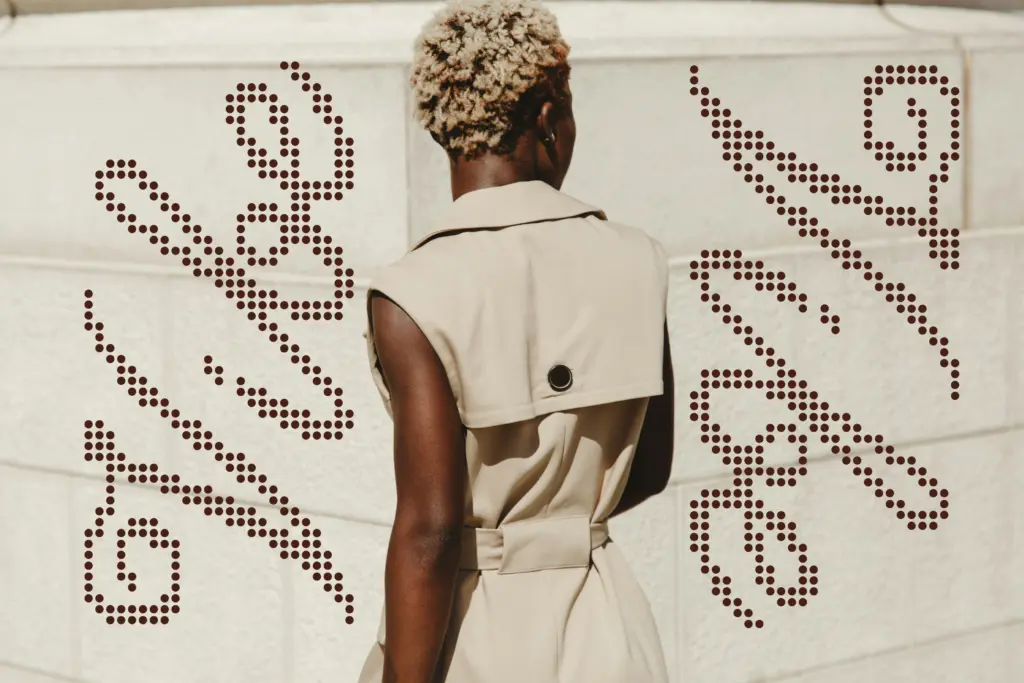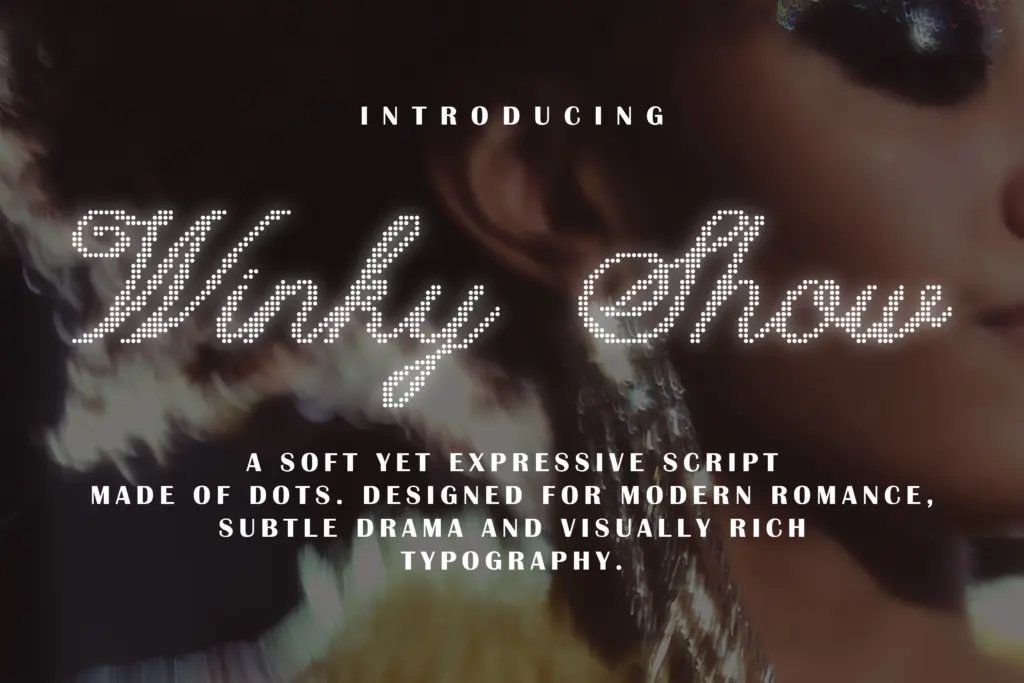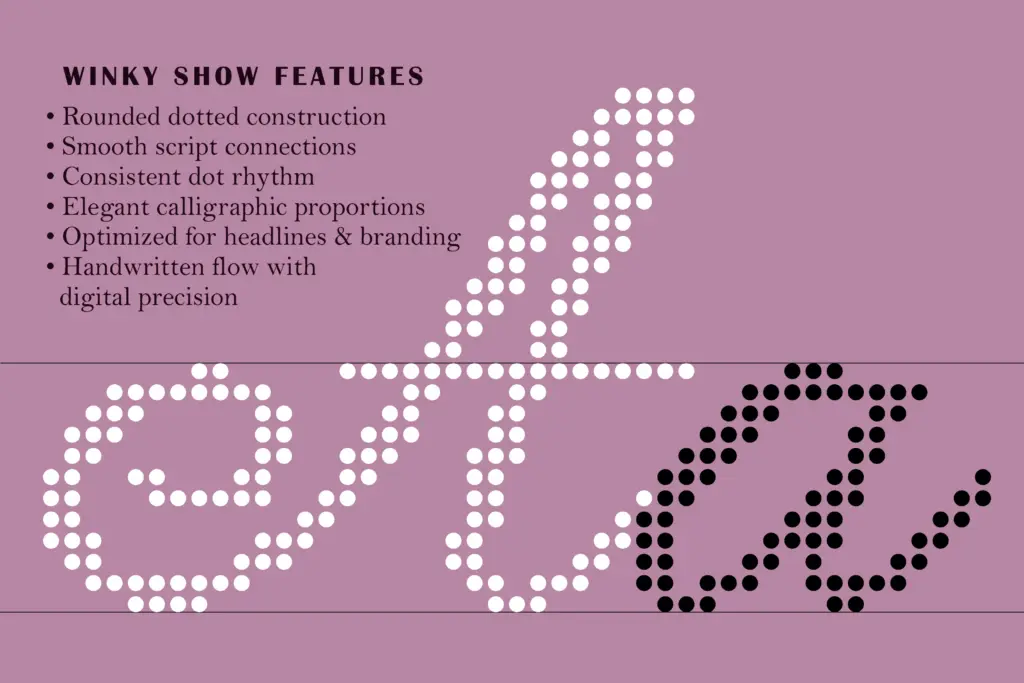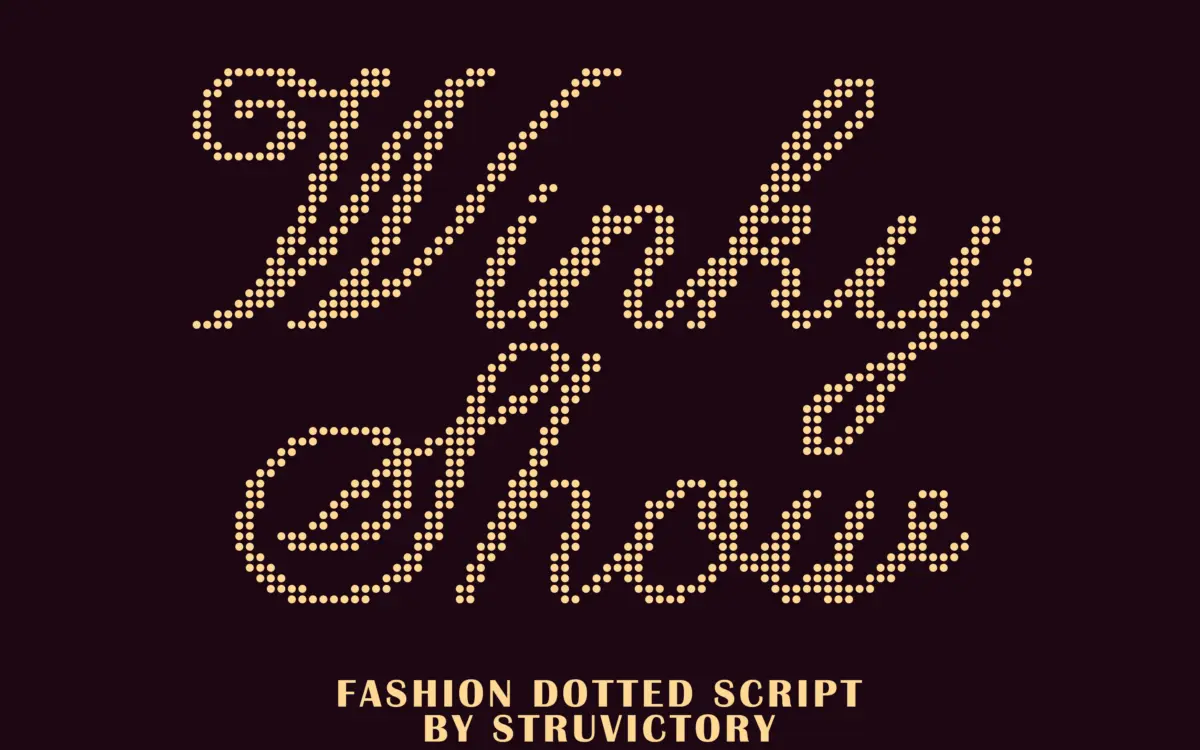
Winky Show takes the connected script format and rebuilds it out of rounded dots rather than a continuous stroke. The result reads as a script at a distance, then breaks into a beaded, textural pattern up close. That two-stage read is the whole idea of the font, and it’s a reasonably distinctive one — most scripts on the market are variations of pen or brush strokes, and this one is neither. The dot module is consistent across the alphabet, giving the letterforms a rhythmic, almost pixel-like pulse even though nothing about it looks digital in the retro-tech sense.
The proportions are calm rather than showy. Letters lean gently, x-heights sit mid-range, and the connections between letters are smooth enough that the dotted texture doesn’t fight the overall flow. It’s a soft face — the brief’s own word for it is accurate — and that softness is deliberate rather than a side effect of the dot construction. Ascenders and descenders are kept modest, which helps the dotted texture stay legible instead of dissolving into noise.
As a script built for display, the letterforms are designed to connect, so tracking and baseline sit close to whatever default the designer set — this is not a font you’ll want to spread out or condense heavily, since the dot spacing does the visual work of the connections. Because every stroke is rendered as a series of dots rather than a solid line, there’s more visual incident per letter than a typical script has, which matters when you’re setting more than a word or two.
The specifics of language coverage, alternate characters, or OpenType ligature sets aren’t detailed in what’s available, so treat the font as a single style built primarily for short-form Latin setting rather than a fully-featured text family. At larger display sizes the dots are crisp and even; there’s no indication this was built with paragraph-length body copy in mind, and the construction itself argues against it — dotted strokes lose definition fast as size drops.
This is a font for a headline, a logotype, a single word on a poster or a product label — somewhere the dotted texture can be seen and appreciated rather than skimmed. Fashion and beauty branding is an obvious fit given the soft, feminine tone of the strokes, and it would sit comfortably on packaging, invitation cards, or an editorial spread where the type itself is meant to carry some of the visual interest, not just convey information.
It’s less suited to anything needing sustained reading or small-size clarity — a paragraph of it will fight the reader rather than inform them. Pair it with a plain sans or serif for supporting text and let this carry the single moment it’s built for: a title, a name, a wordmark. Used that way, the dot construction becomes a genuine differentiator rather than a gimmick.
- The dotted construction gives it a texture and rhythm that standard brush or pen scripts don't have.
- Proportions and connections stay smooth despite the broken-dot structure, so it reads as elegant rather than gimmicky.
- Well suited to fashion, beauty and editorial branding where a single word or short headline needs presence.
- Legibility drops quickly at small sizes since the dot detail needs room to register.
- Feature set appears limited to a single style, with no confirmed alternates or extended language support.
Winky Show commits fully to a single idea — a script rendered in rounded dots — and that idea works well at display sizes for fashion and editorial branding. It's not built for body copy or dense settings, and its niche is narrow, but within that niche the texture is genuinely distinctive.